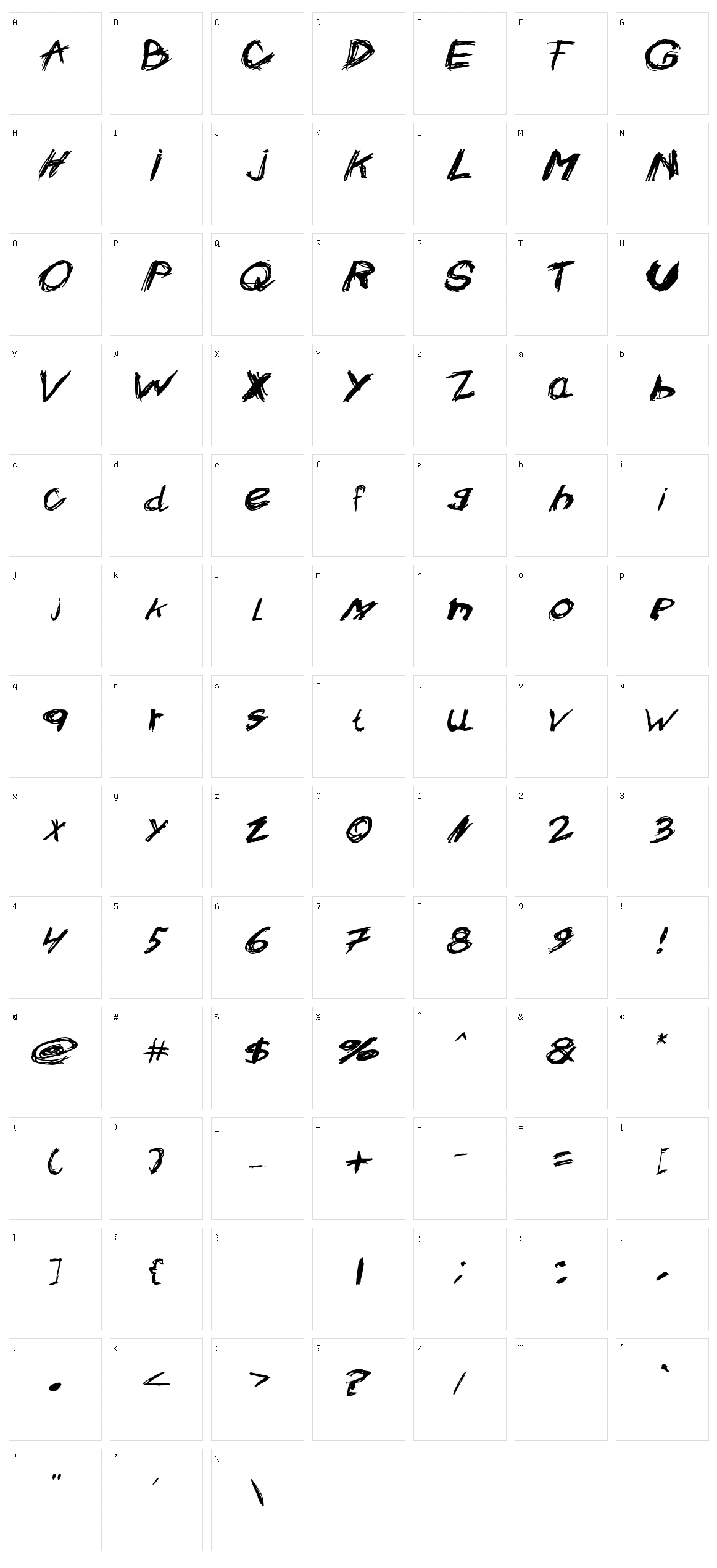
The free font Crazysk8 is carefully designed by Marinus Klasen, showcasing a thoughtful balance of creativity and usability and falls under the Trash font style. When you download the ZIP file, it contains only 59.4 KB of font files, making it lightweight and quick to download. Please review the license details below to understand permitted usage and distribution rights. If license information is not available, we recommend using this font for personal projects only or contacting the author directly for commercial usage permissions.